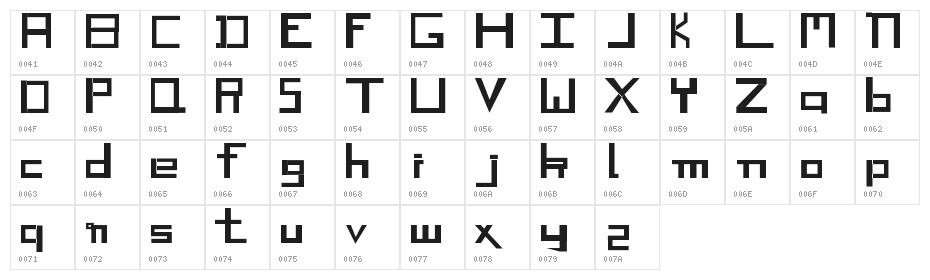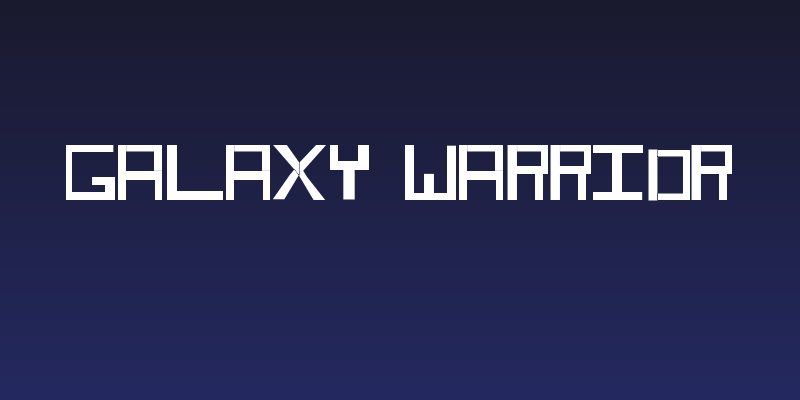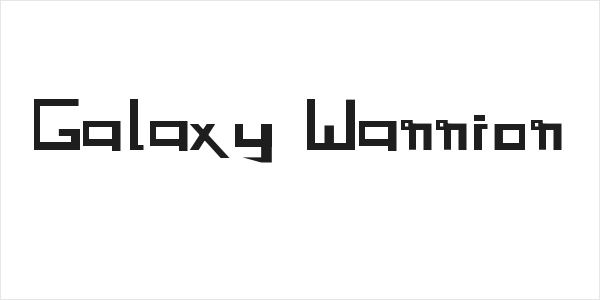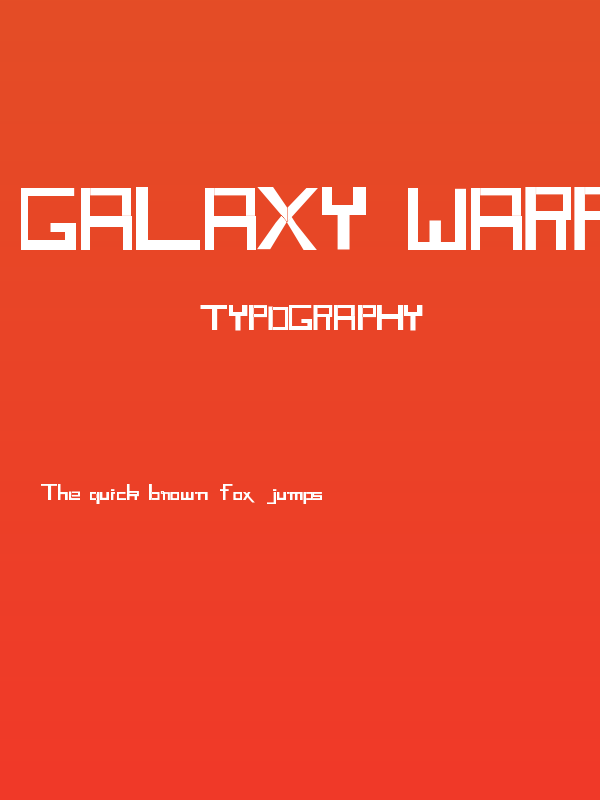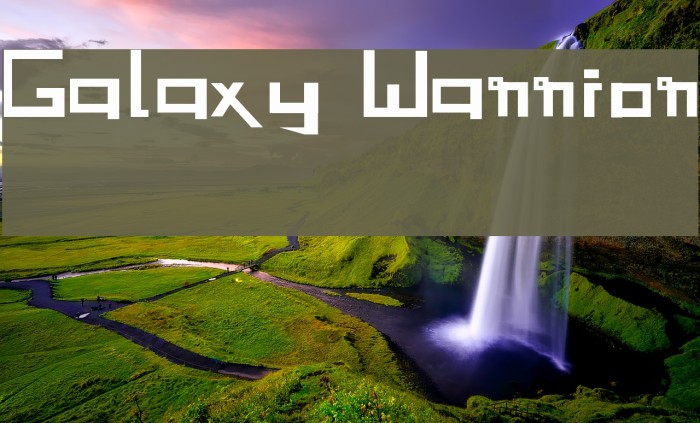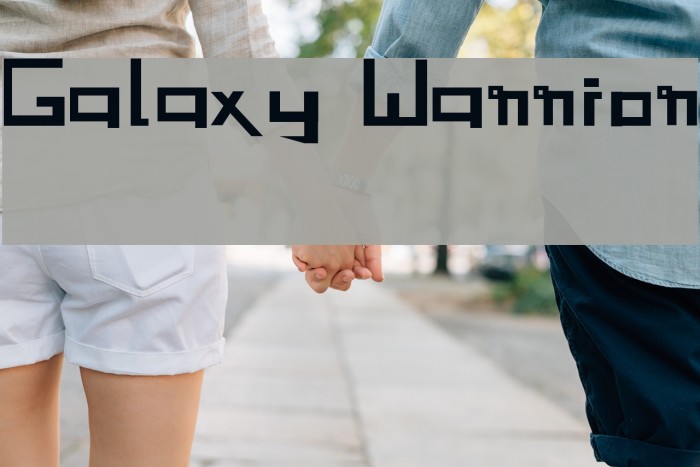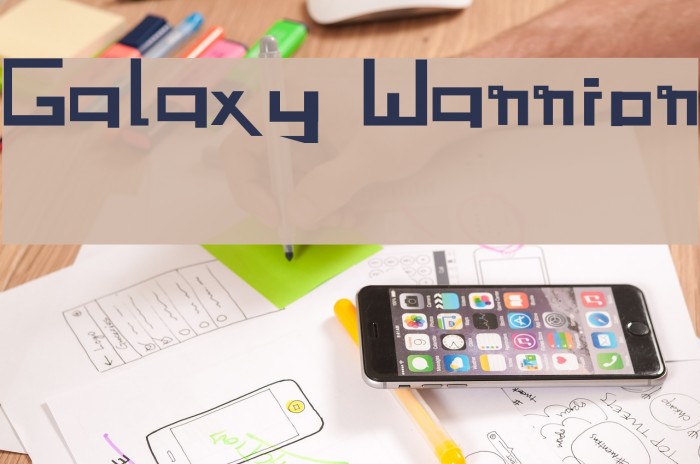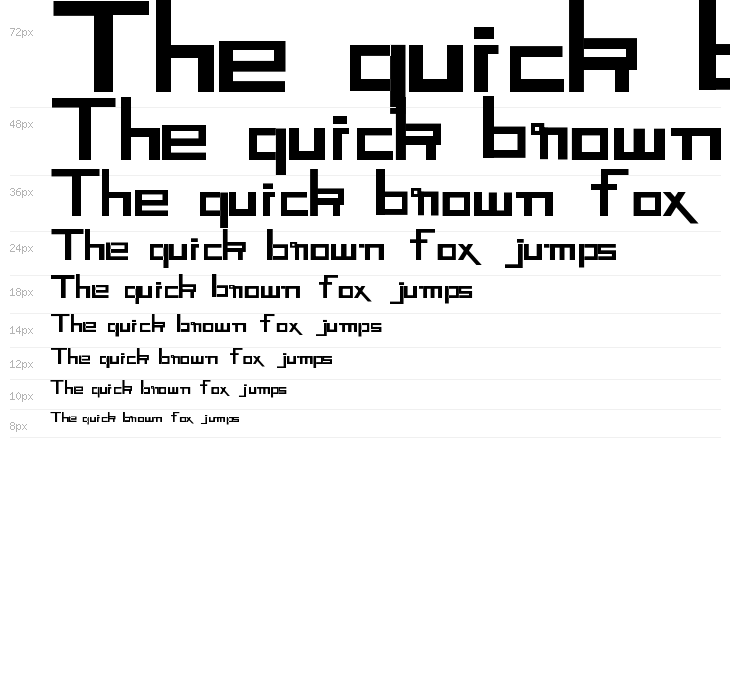
Galaxy Warrior Font
Galaxy Warrior Description
This font features a futuristic and angular design, reminiscent of science fiction aesthetics. The characters are constructed with sharp, geometric lines and a blocky appearance, giving it a bold and assertive look. The uppercase letters are particularly striking, with unique angles and cuts that create a sense of movement and energy. The lowercase letters maintain the same angular style, ensuring consistency throughout the typeface. The numbers and special characters follow the same design principles, making them easily recognizable and visually cohesive. This font is ideal for projects that require a modern and edgy feel, such as video game titles, movie posters, or technology branding.
| Proposed Projects | Ideal for video game titles, sci-fi movie posters, technology branding, and futuristic designs. |